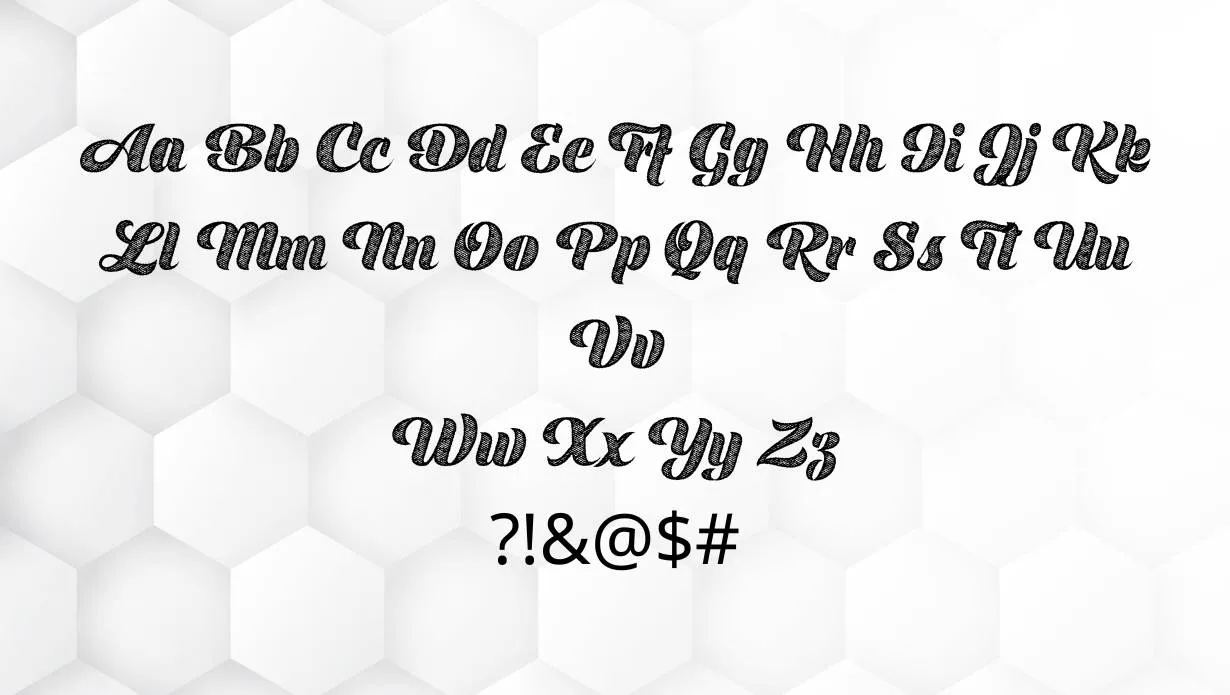
Moonshine Font has a rustic and handmade appearance, making it perfect for DIY and craft-related projects.
Whether you’re creating homemade product labels, craft fair banners, or rustic wedding invitations, Moonshine Font adds a touch of authenticity and craftsmanship to your designs.
| Name | Moonshine Font |
| Designer | Billy Argel Fonts |